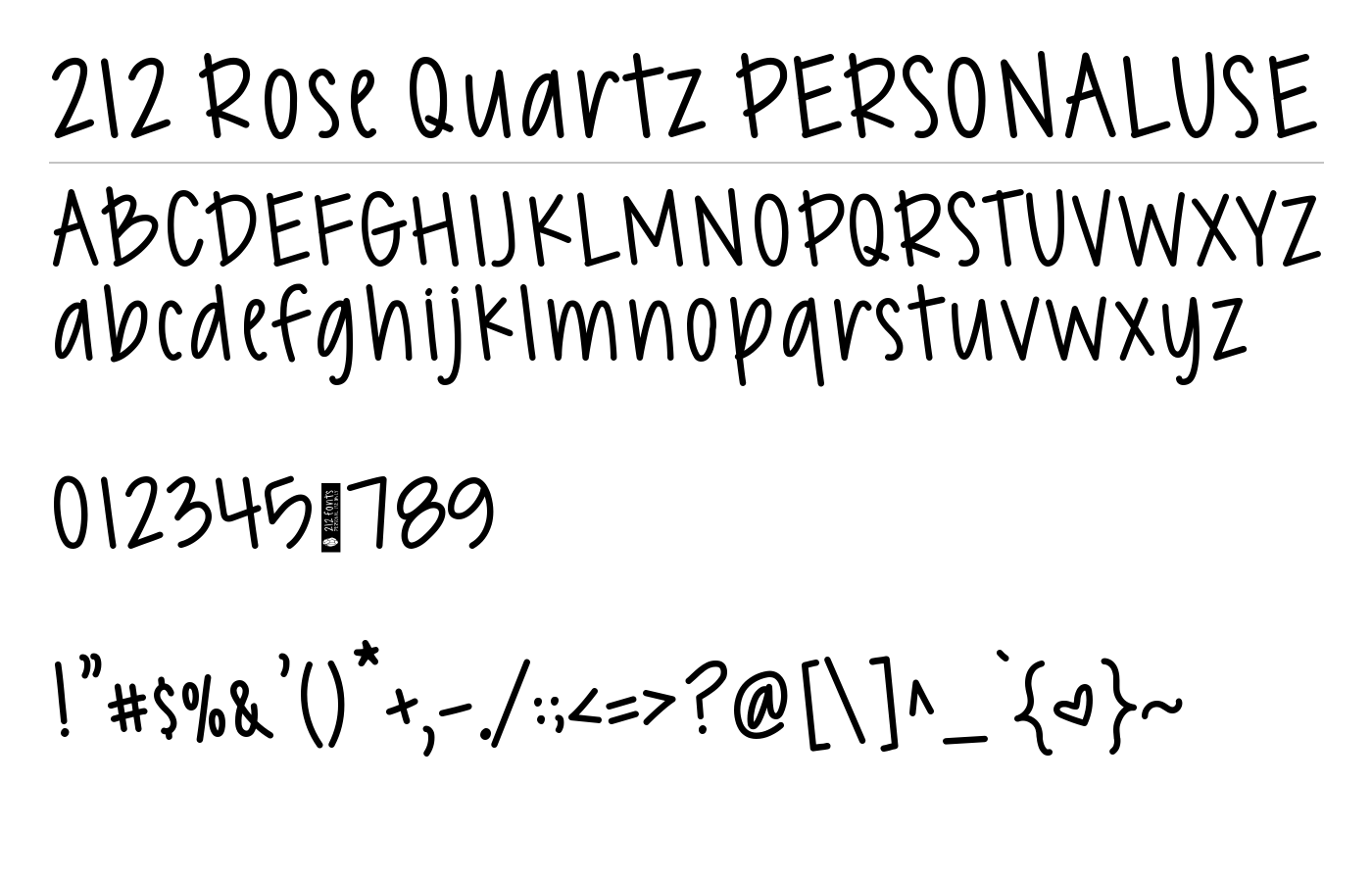
212 Rose Quartz PERSONALUSE is a playful, handwritten sans serif font with a casual and friendly vibe. Its tall, narrow letterforms and consistent stroke weight give it an approachable feel, making it ideal for informal designs that require personality and warmth. This font works well for greeting cards, social media posts, children's content, and other creative projects that benefit from a personal, hand-drawn touch.
212 Rose Quartz PERSONALUSE Font
About 212 Rose Quartz PERSONALUSE Font